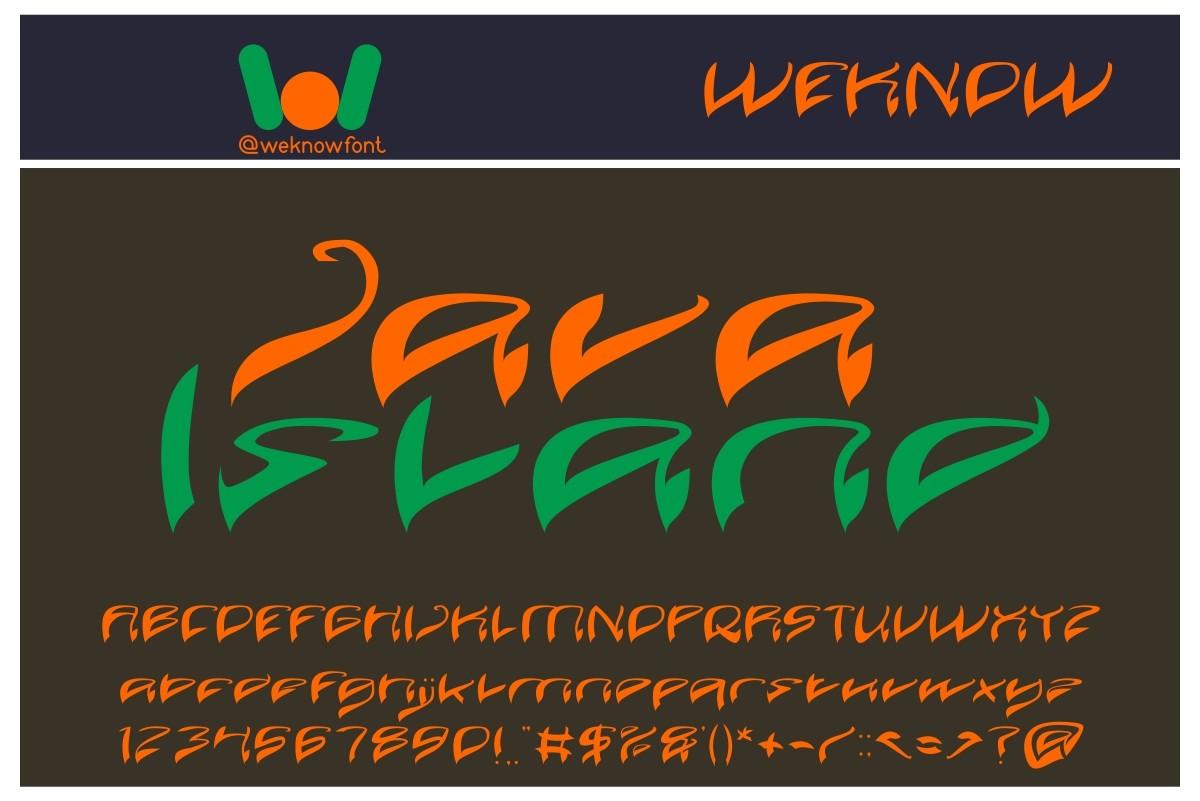
Java Island Font Description
Java Island is a cool, whimsical and wavy display font. Whether you’re using it for crafts, digital design, presentations, or making greeting cards, this font has the potential to become your favorite go-to font, no matter the occasion!